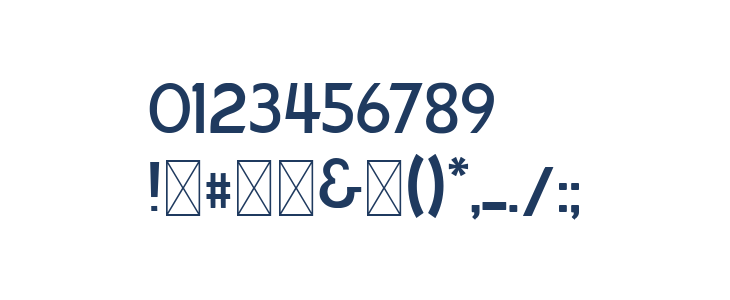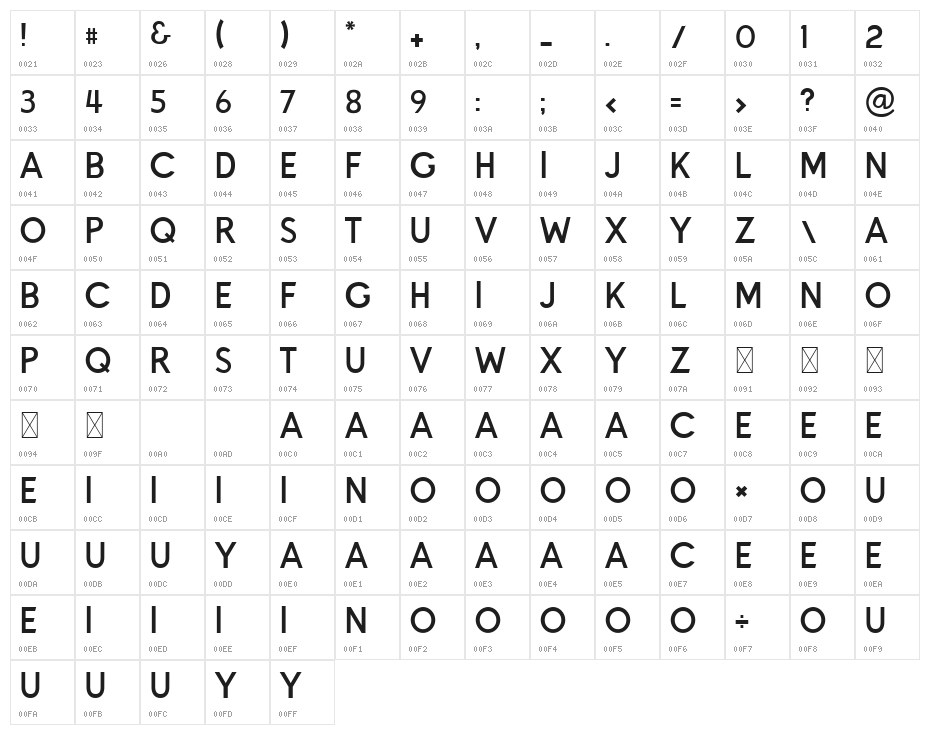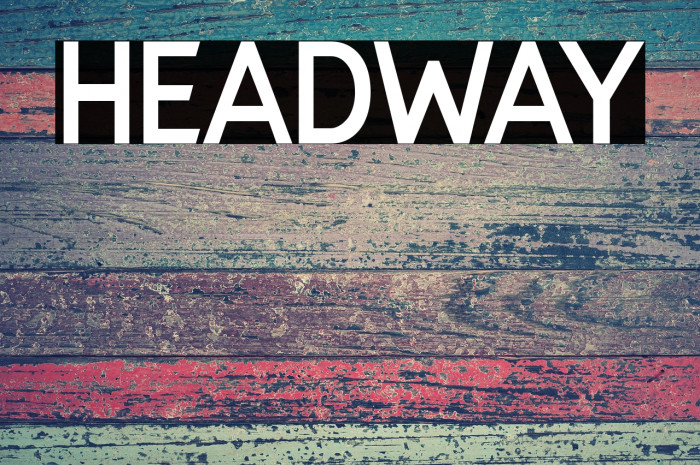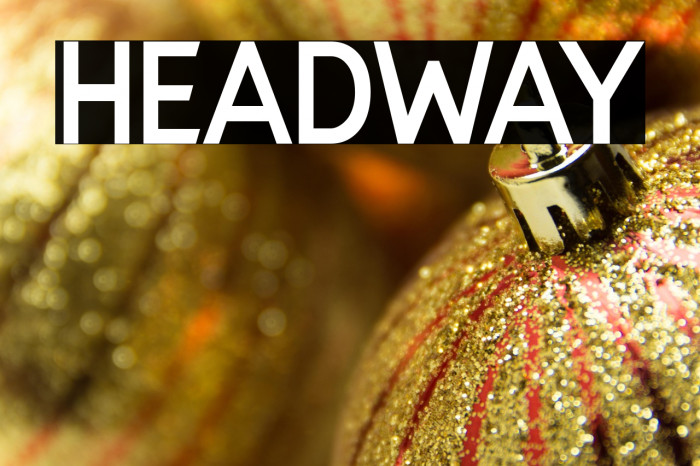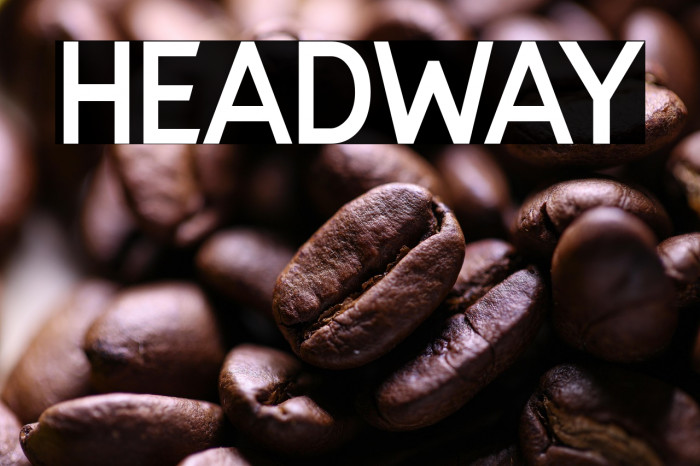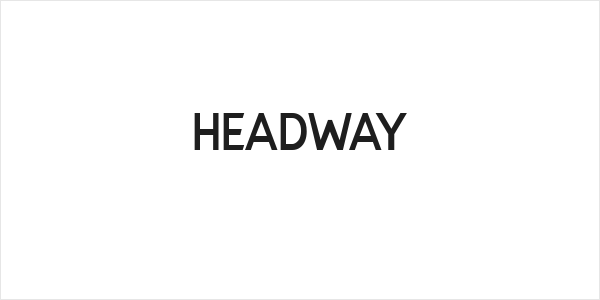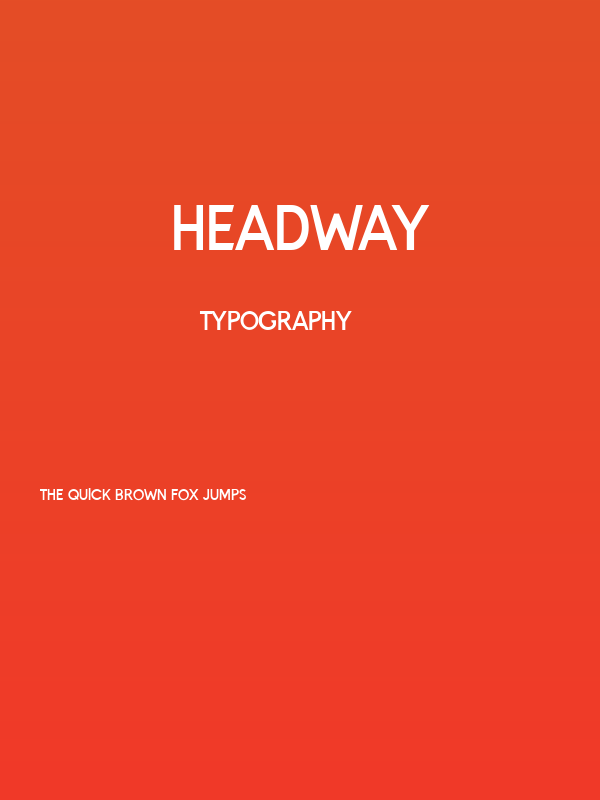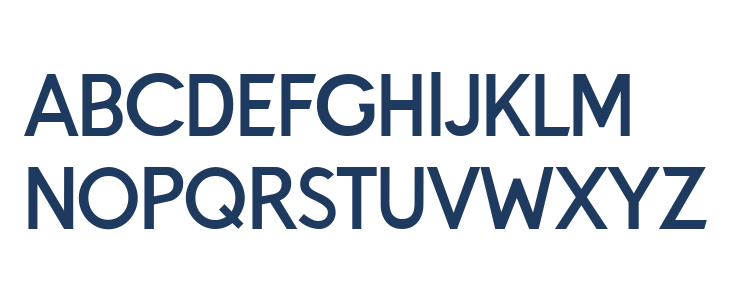
HEADWAY Font
HEADWAY Description
This font features a clean and modern sans-serif style, characterized by its bold and uniform stroke width. The letters are well-proportioned with a geometric influence, offering a sense of stability and clarity. The uppercase and lowercase characters maintain a consistent design, ensuring readability across different sizes. The numerals are straightforward and align well with the overall aesthetic, making them suitable for both digital and print media. Special characters are included, providing versatility for various applications.
| Use Case | Headlines, Logos, Digital interfaces |
| Proposed Projects | Ideal for branding, advertising, headlines, and digital interfaces where clarity and modernity are essential. |